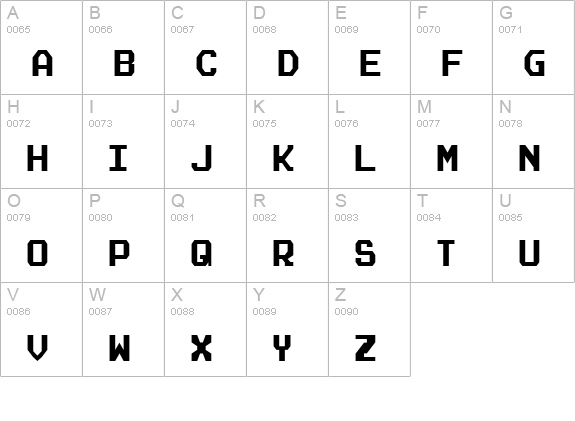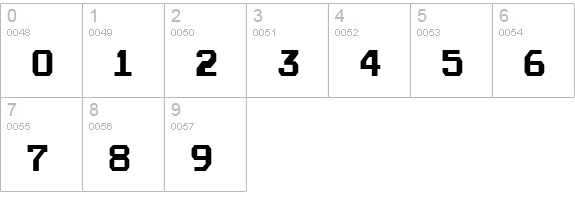
Realpolitik Condensed is a distinctive, condensed-width variant in the Realpolitik typeface family \xE2\x80\x94 well suited to design and typography projects.
Realpolitik Condensed font is a sleek and modern typeface that exudes sophistication and professionalism. Its condensed design makes it perfect for creating stylish and impactful designs, whether for print or digital media. The clean lines and sharp edges of this font give it a contemporary feel that is sure to enhance any project it is used in. Best of all, Realpolitik Condensed font is available for free download at FontsMarket.com. This means that you can easily access this high-quality typeface without any cost, making it a fantastic option for designers on a budget or anyone looking to add a touch of elegance to their work. Don't miss out on the opportunity to elevate your designs with Realpolitik Condensed font – download it for free today!